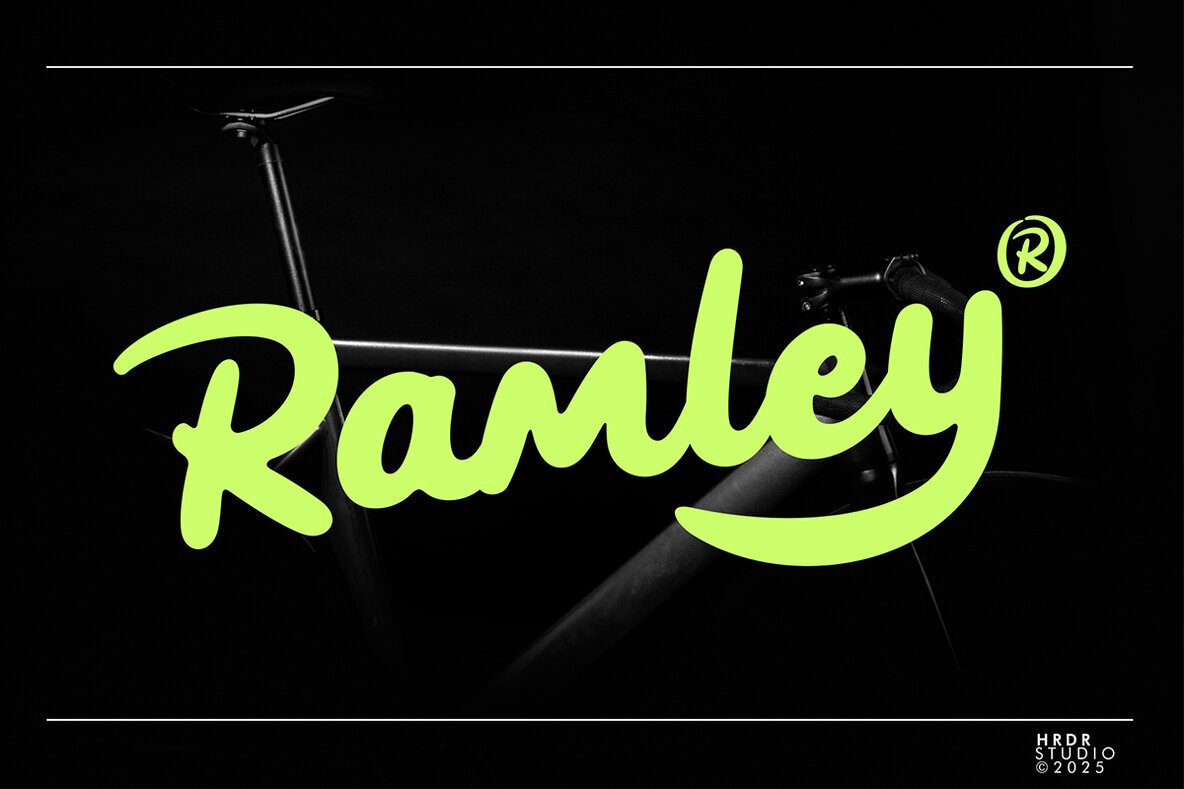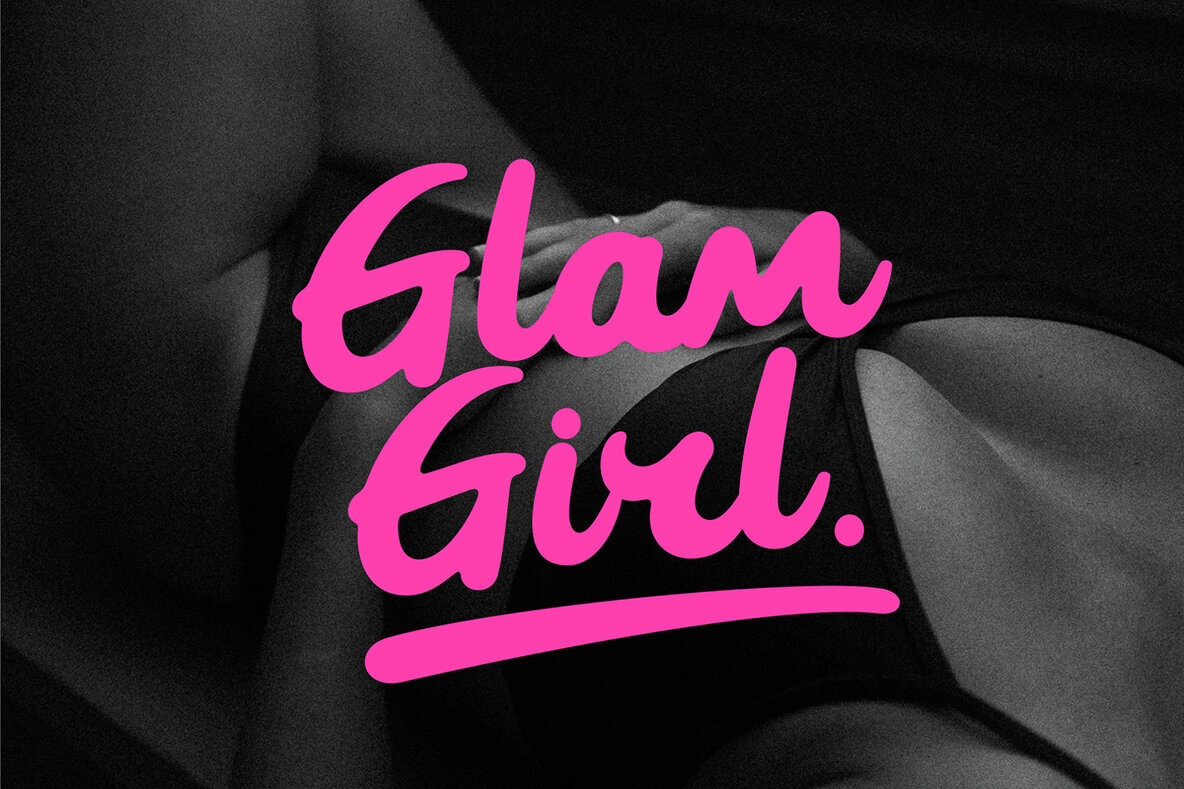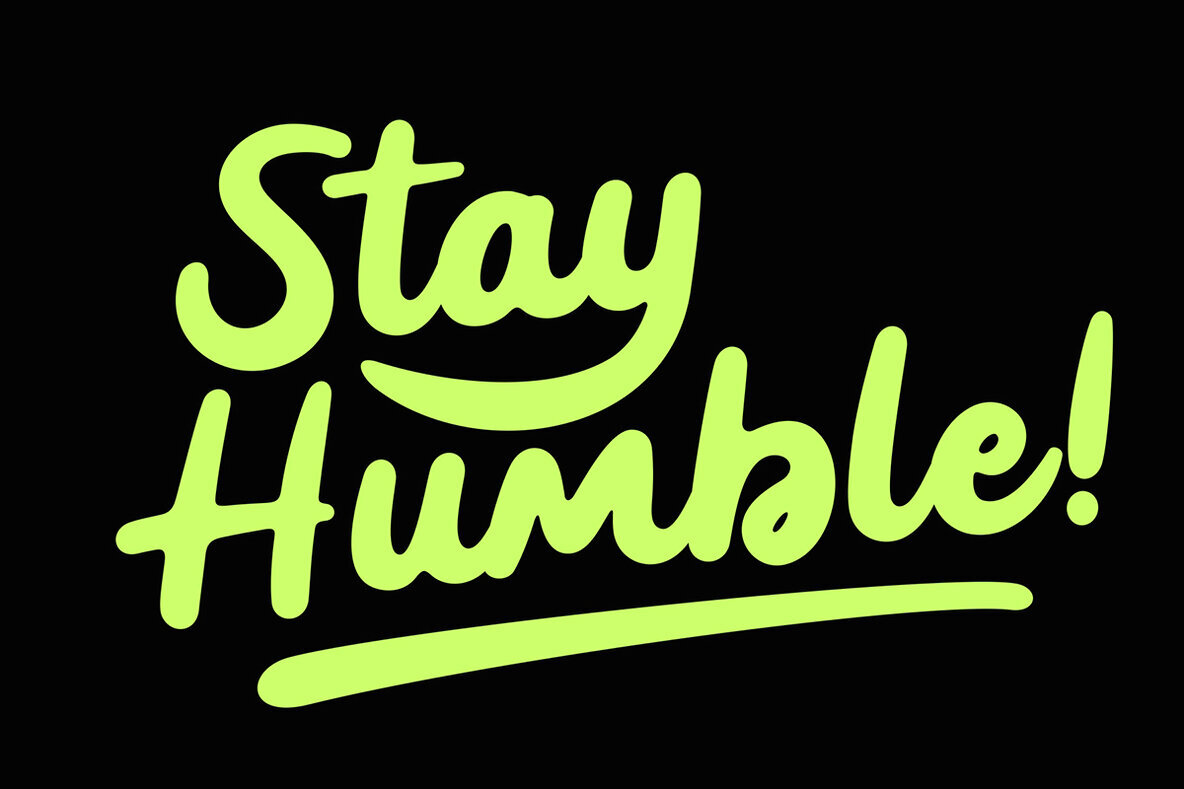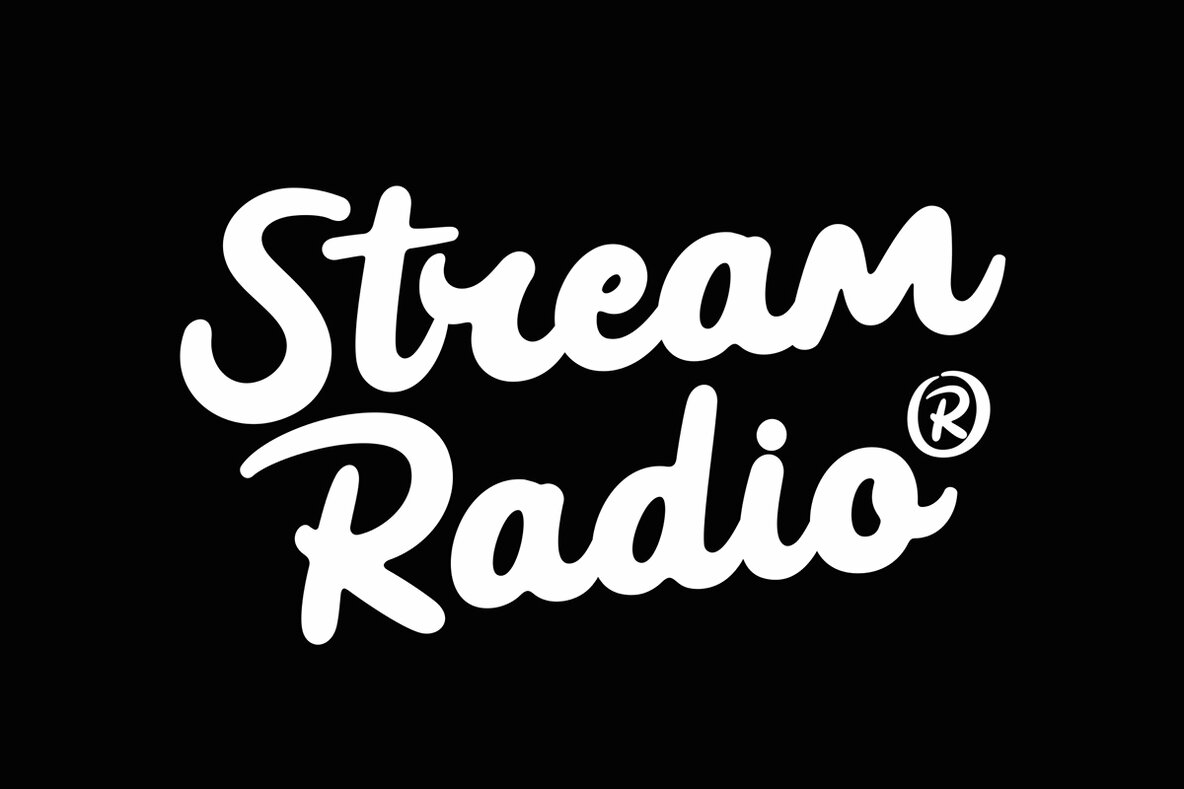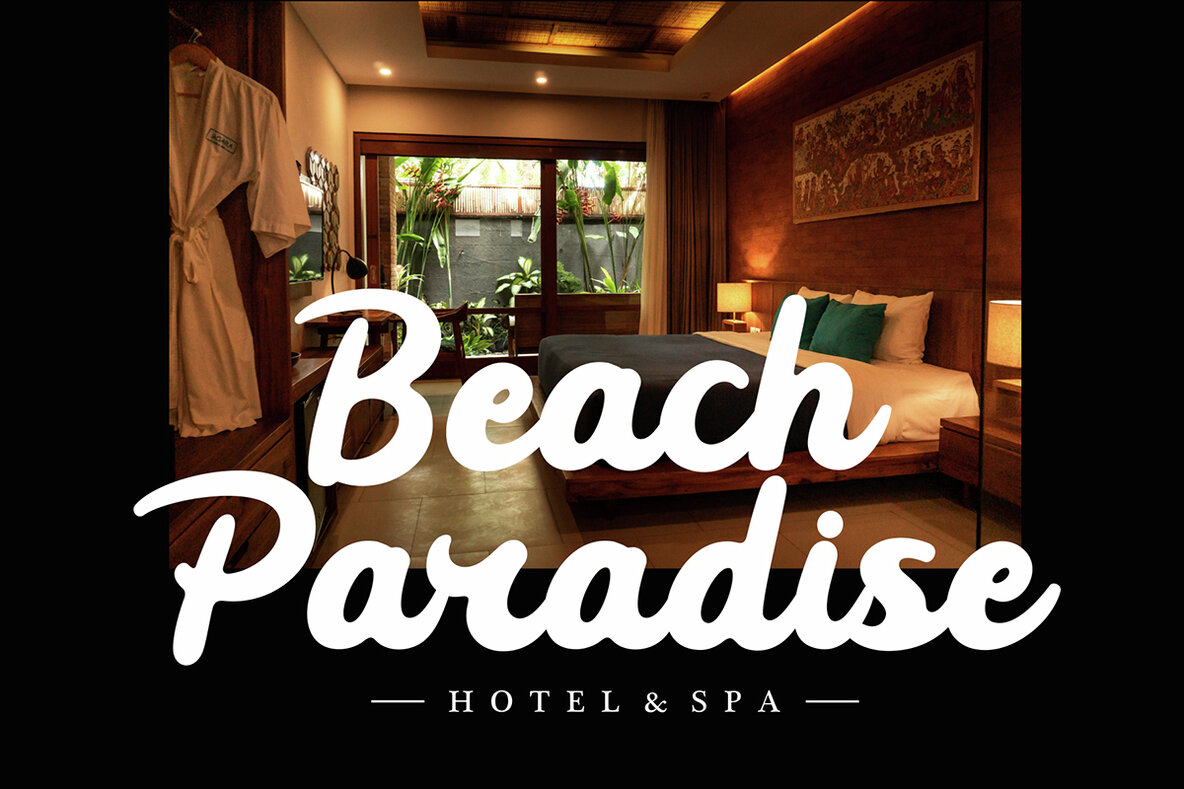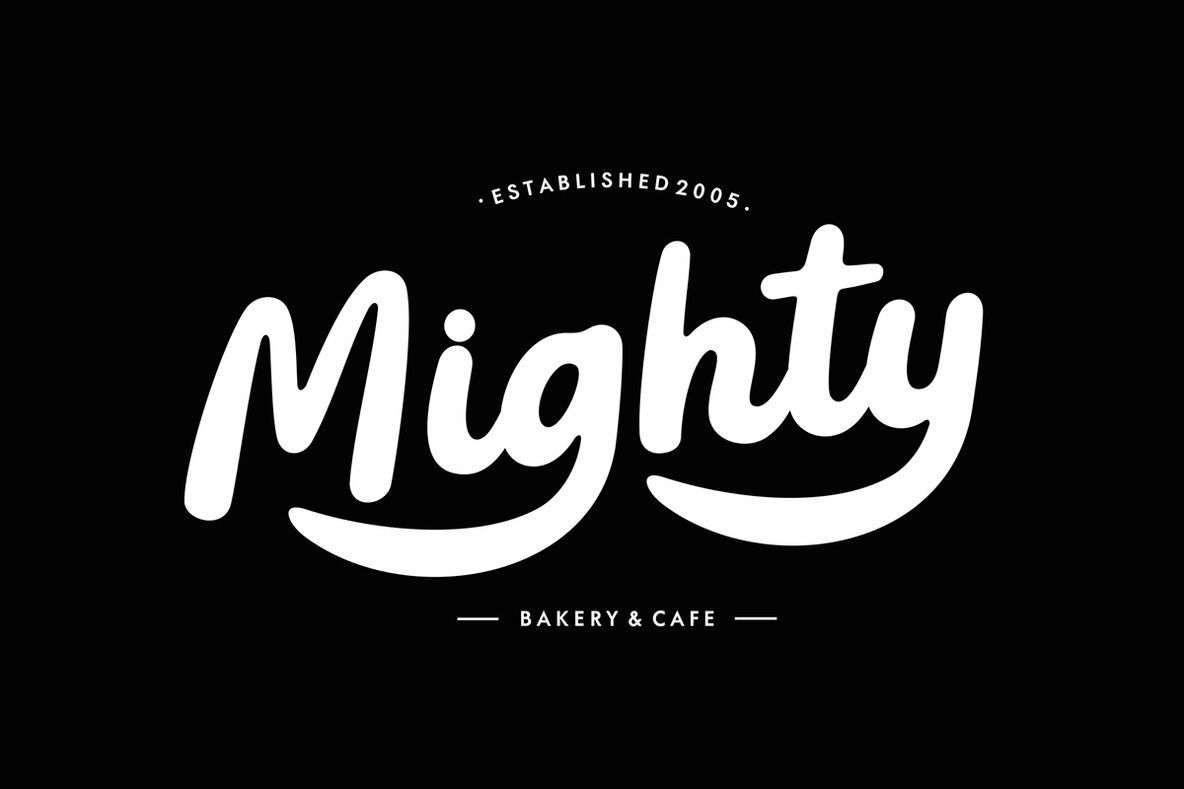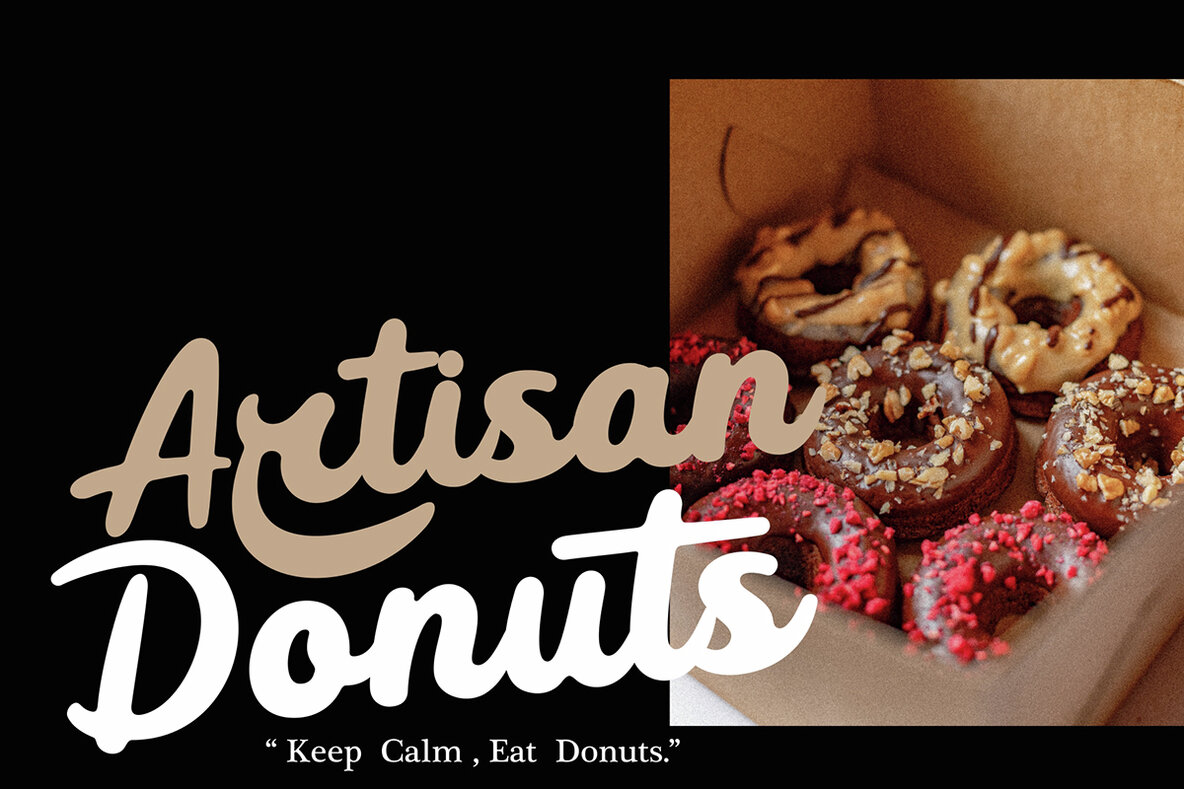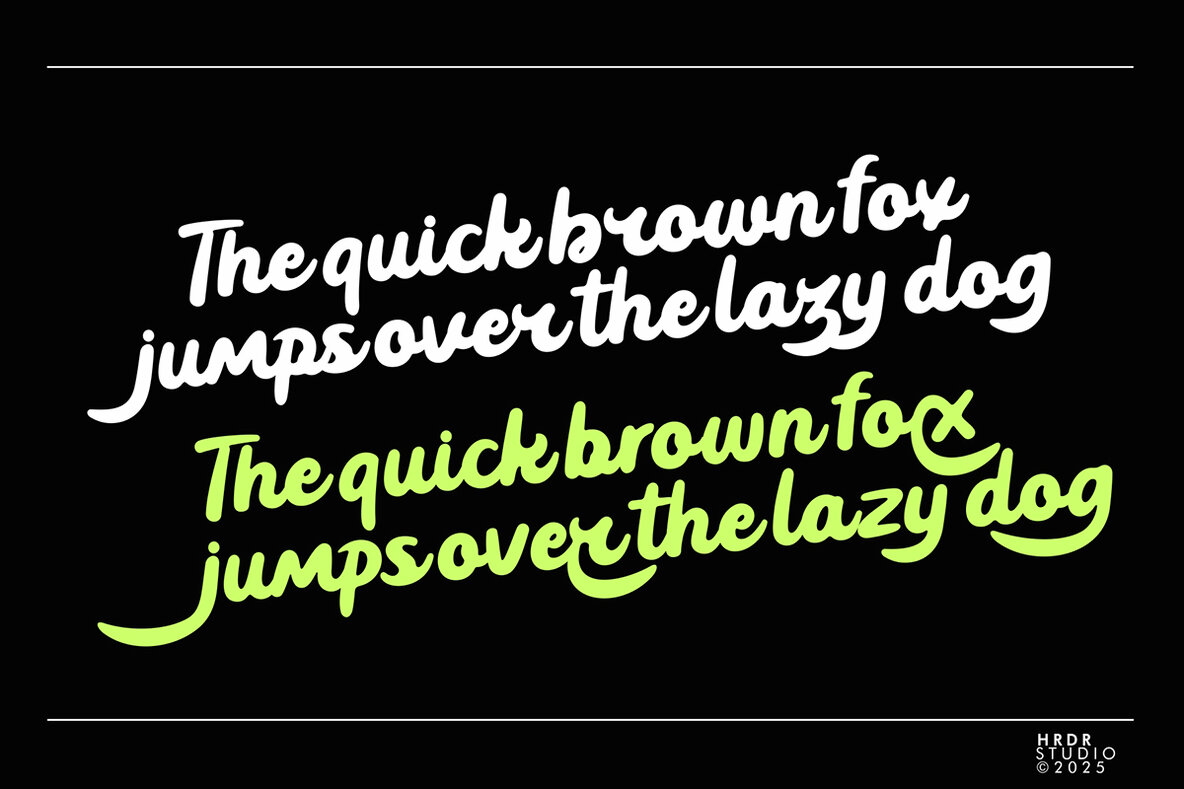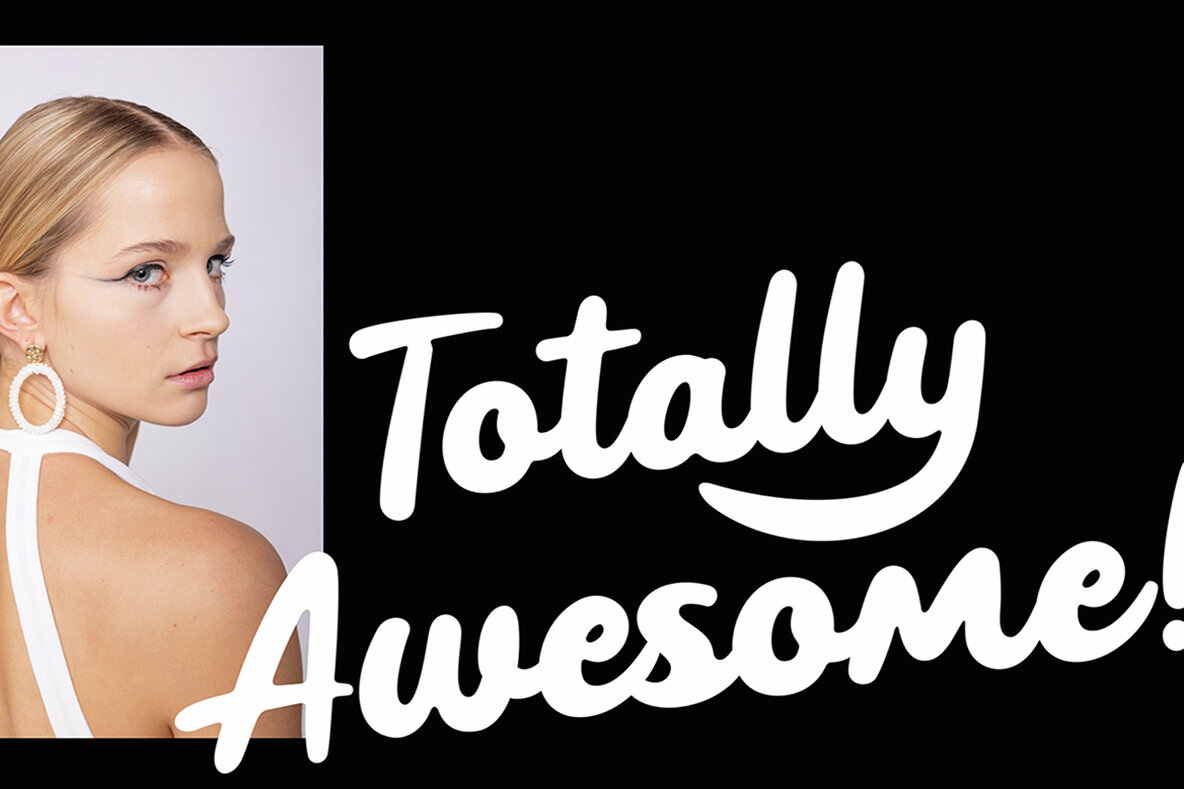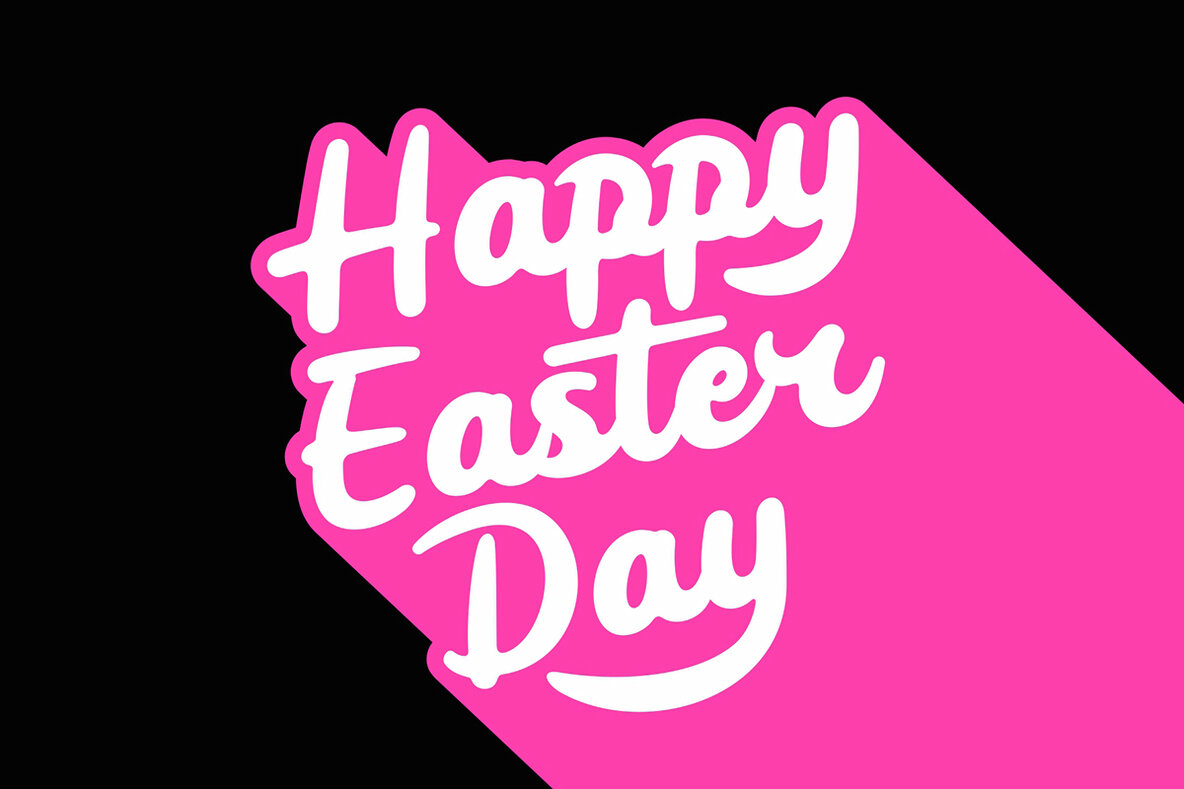
Ramley Font
Ramley
Immerse yourself in the refined simplicity of Ramley, a handwritten font that gracefully enhances a breadth of design projects. Its elegant curves bring warmth and intimacy to branding, crafting, invitations, and stationery. Whether intertwined in wedding designs or featured in social media posts, advertisements, and product packaging, Ramley adds a distinctive personal touch, elevating every element it graces.Ramley: Elegant Handwritten Font for Versatile Designs